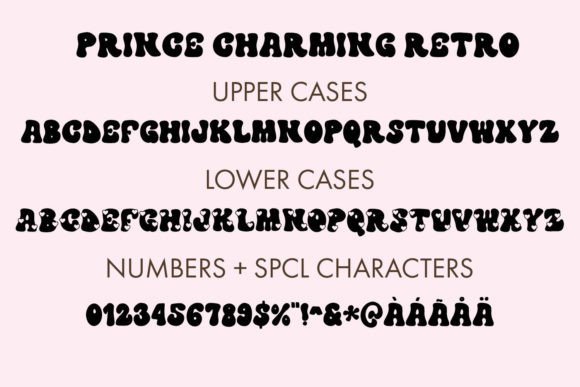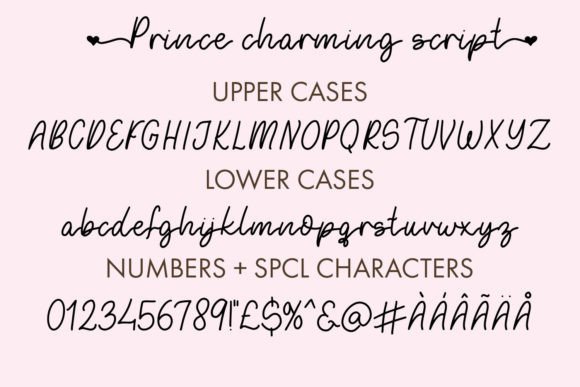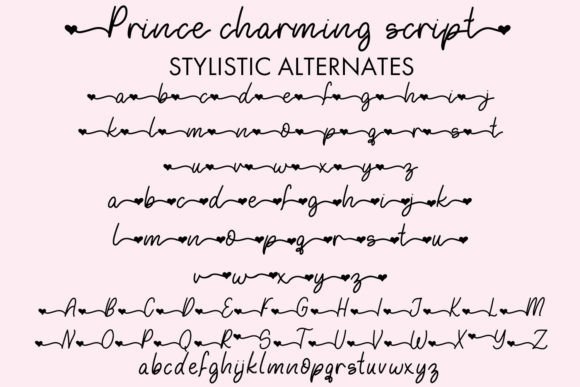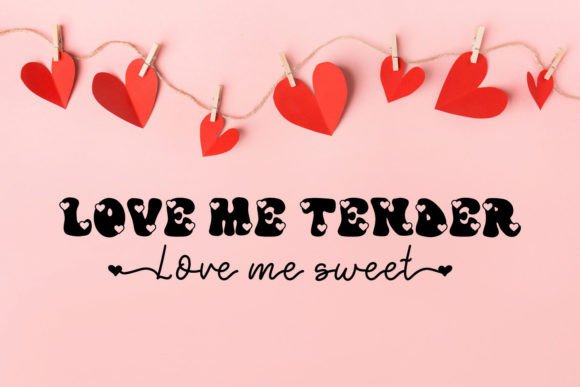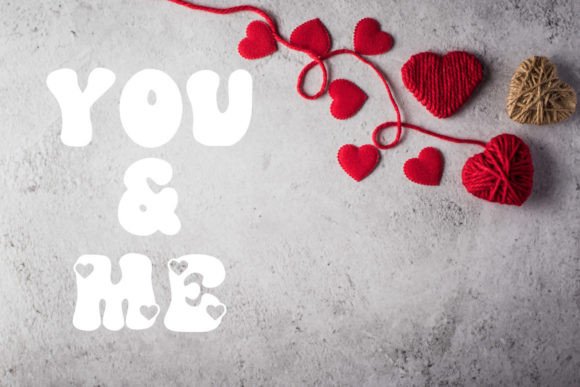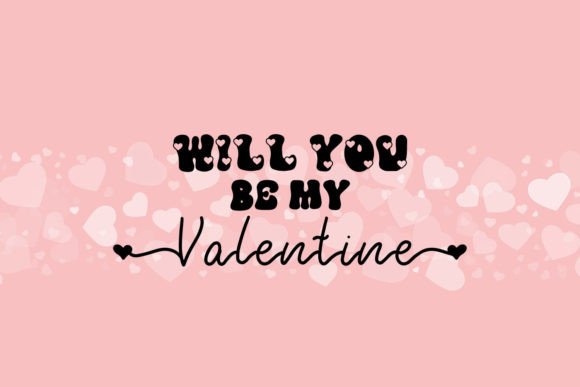
Introduction to Prince Charming Duo Font Font
Fonts play a crucial role in design, and the Prince Charming Duo Font font is a typeface that brings both character and versatility to any project. Whether you’re working on a branding project, a website, or a print design, the Prince Charming Duo Font font offers a unique style that can elevate your work.
Prince Charming is a fun, retro font duo (display and script).
Key Features of Prince Charming Duo Font Font
Why Choose Prince Charming Duo Font Font?
The Prince Charming Duo Font font is more than just a typeface – it’s a design tool that helps you communicate your message with style and clarity. Its unique character set and versatile design make it suitable for a wide range of applications, from elegant invitations to bold headlines.
With its carefully crafted letterforms and balanced proportions, the Prince Charming Duo Font font ensures readability and visual appeal across all mediums.
What makes Prince Charming Duo Font font special?
The Prince Charming Duo Font font stands out with its unique design, exceptional readability, and versatility across various design applications.